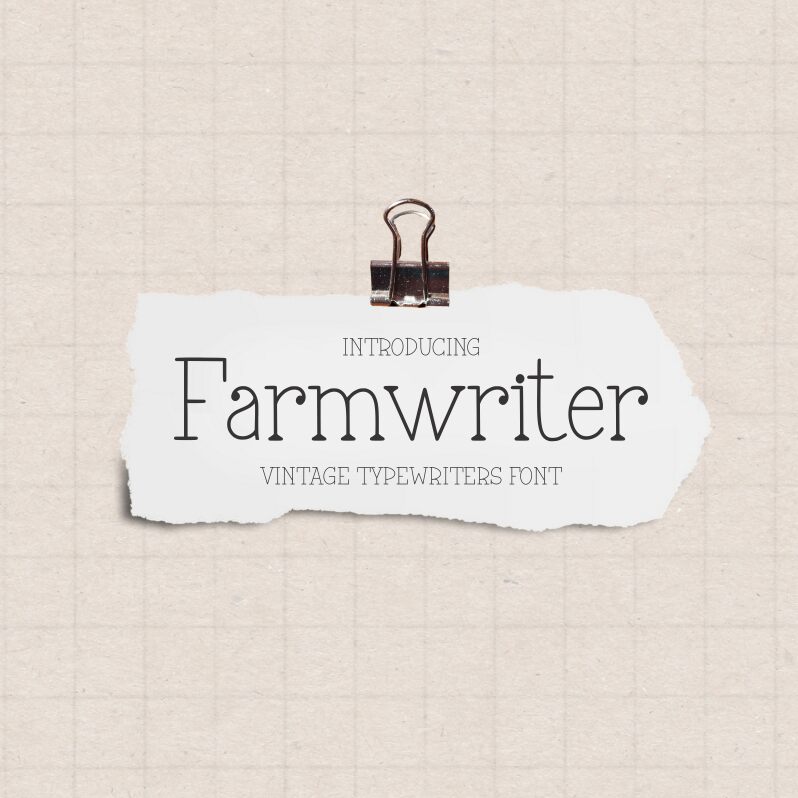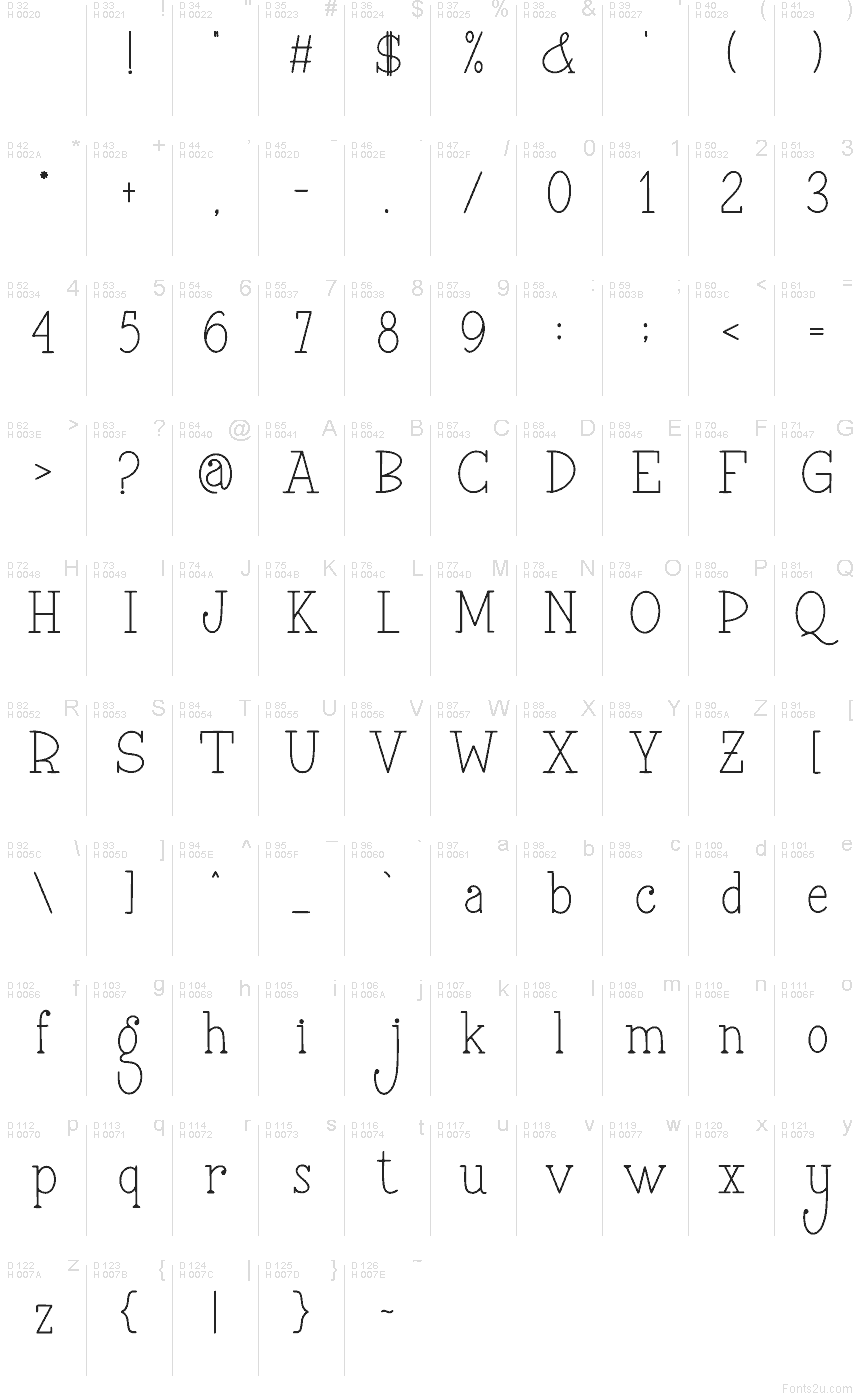
Farmwriter
Farmwriter font by Qwrtype Foundry is a free decorative serif typeface with a gentle typewriter spirit and tall, penciled-in strokes. Its slim, evenly weighted lines and open spacing feel both literary and handmade, like notes in an old farm journal. The slightly square curves and neat little serifs give it a composed, thoughtful character that still feels warm and human.
Using Farmwriter, this free font shines on rustic branding, farm-to-table menus, artisanal packaging, book covers, invitations, and vintage-inspired posters. It reads best at larger sizes, where the airy letterforms and subtle quirks have room to breathe. Pair Farmwriter with a clean geometric sans for body text to keep layouts balanced and readable.